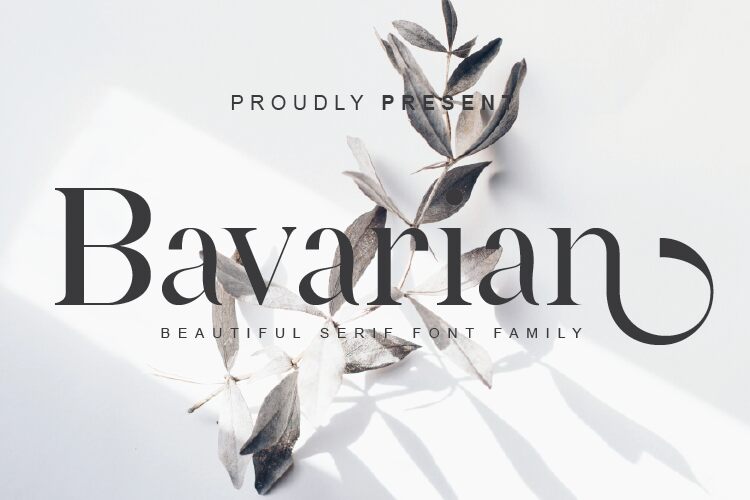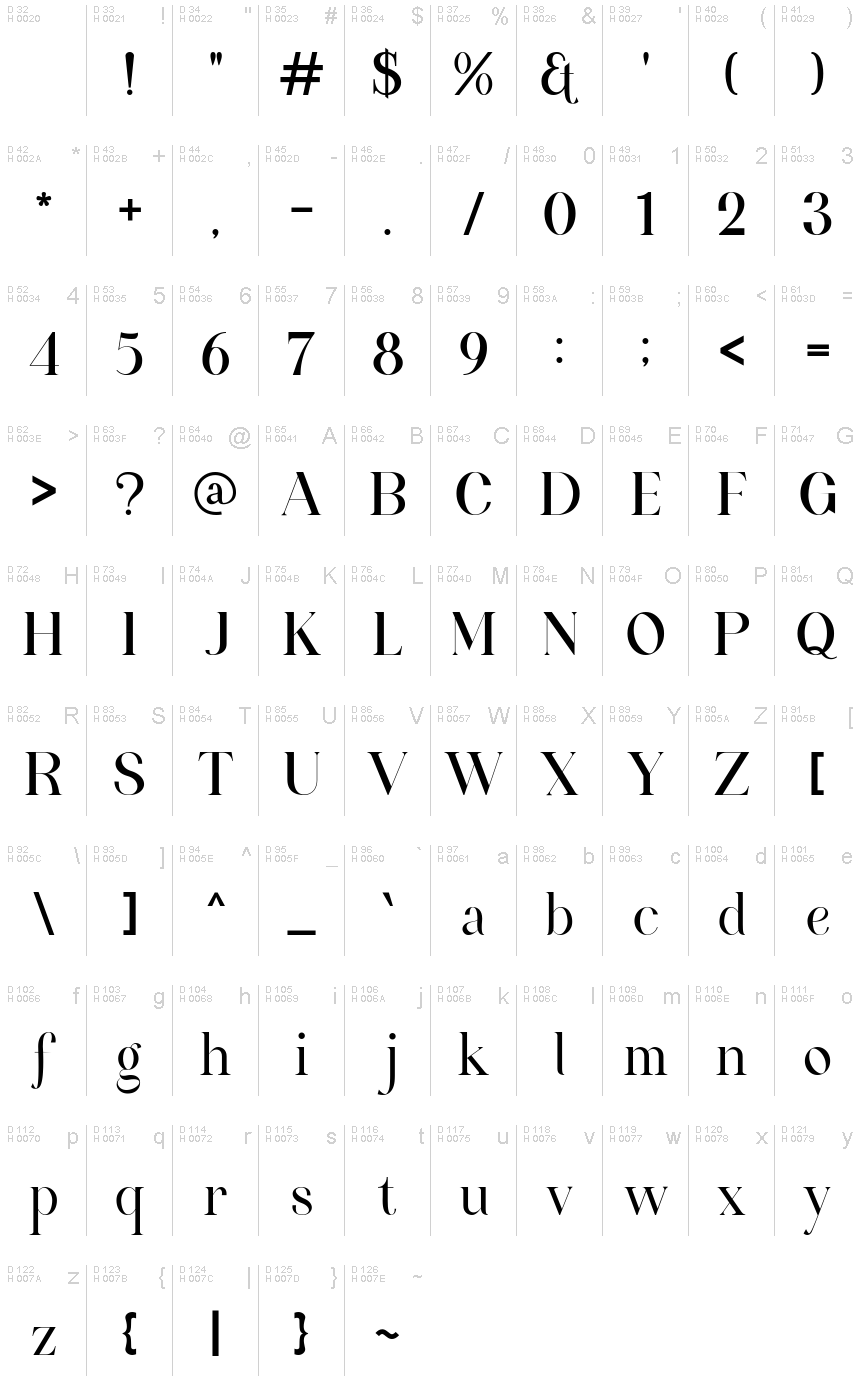
Bavarian
Bavarian, a creation by Rmdndsign, is a serif font that exudes timeless elegance with a modern twist. Its distinct serifs and refined curves lend it an air of sophistication that can elevate any creative project. The subtle contrast in stroke weight adds depth and character, making Bavarian both versatile and visually engaging.
The font's classic aesthetic is perfectly balanced with contemporary flair, making it ideal for a wide range of applications—from editorial layouts to branding and beyond. Whether you're crafting an invitation or designing a book cover, Bavarian's harmonious proportions ensure readability while its style adds an artistic touch.
Embrace the unique blend of tradition and innovation that Bavarian offers to give your designs a distinguished look that stands out with grace and style.